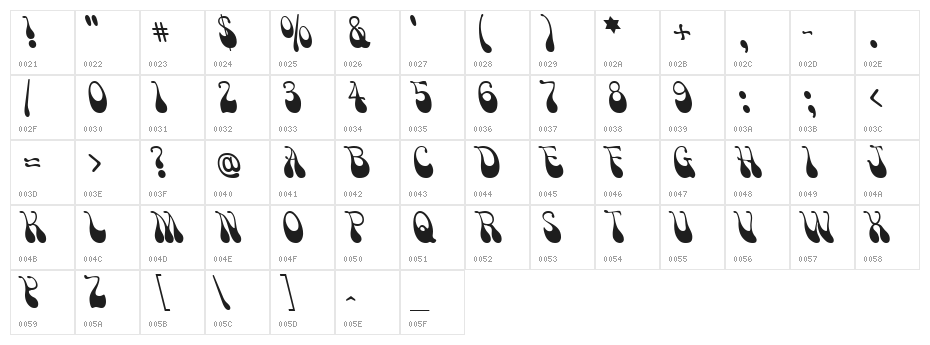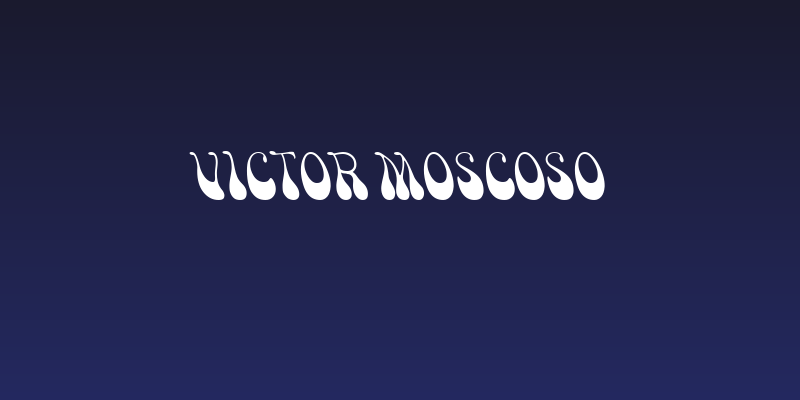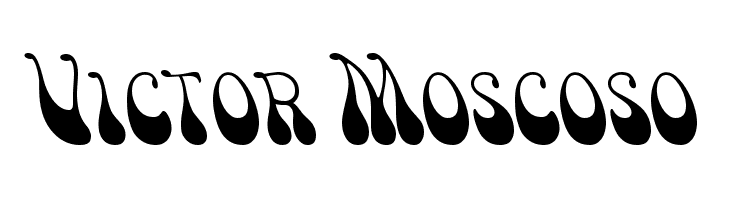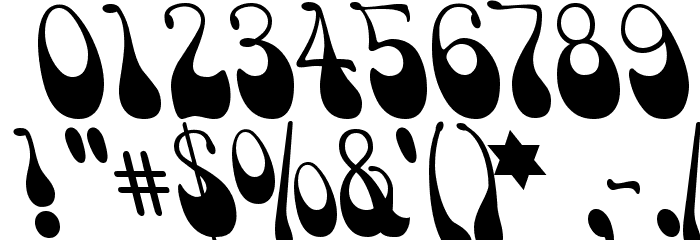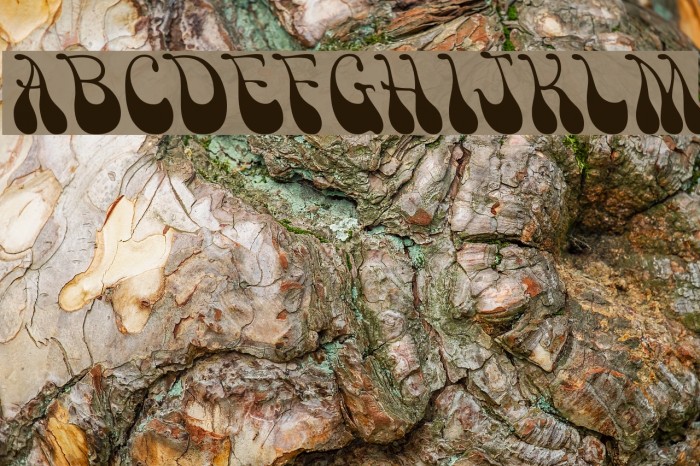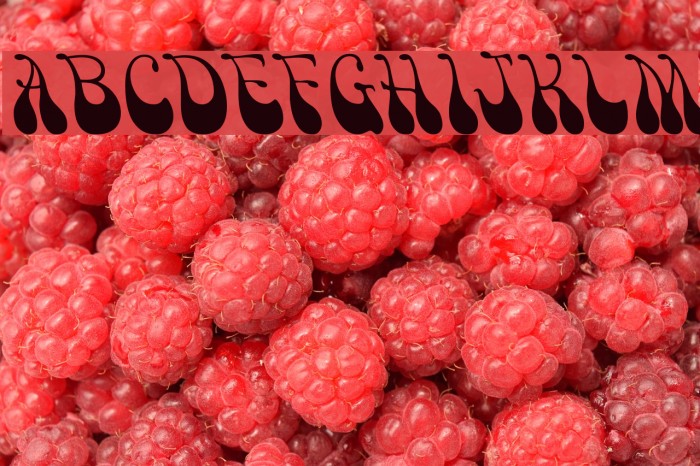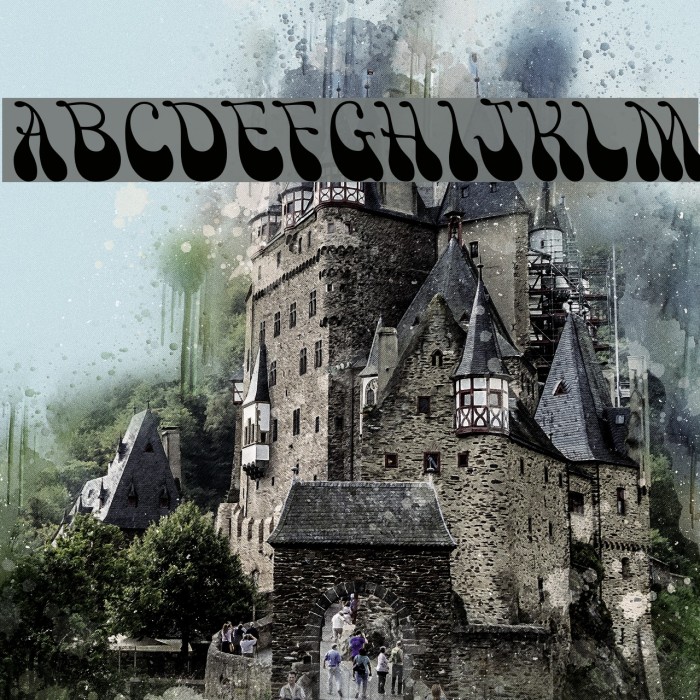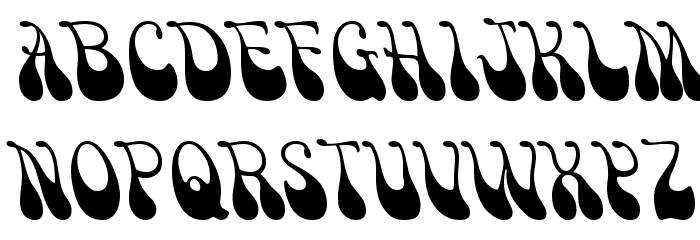
Victor Moscoso Font
Victor Moscoso Description
This font features a bold and playful design with a distinctively fluid and wavy appearance. The characters have a unique, almost psychedelic style, reminiscent of 1960s and 70s poster art. The letters are thick and rounded, with exaggerated curves and a sense of movement that gives them a lively and dynamic feel. The numbers and special characters maintain this whimsical style, making the font suitable for creative and artistic projects. Its eye-catching design is perfect for capturing attention and conveying a sense of fun and creativity.